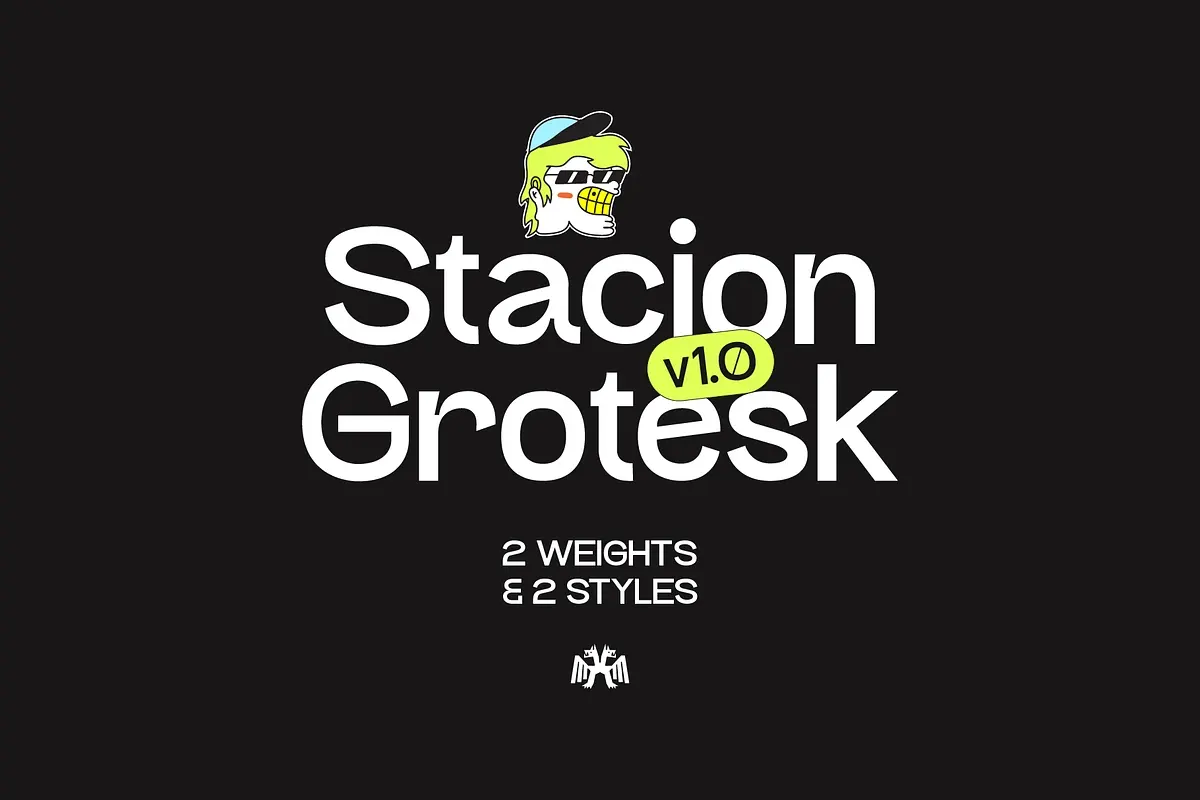
Stacion - Grotesk Type Free Download is a sleek and modern sans-serif typeface that combines a minimalist approach with strong geometric shapes. Ideal for both display and text purposes, Stacion is perfect for branding, editorial layouts, corporate identities, and digital media where clean, efficient typography is key.
Its geometric roots give it a contemporary feel, while its straightforward design ensures legibility and versatility across various design contexts. Whether you're working on website designs, app interfaces, or sleek marketing materials, Stacion offers a professional and stylish solution.